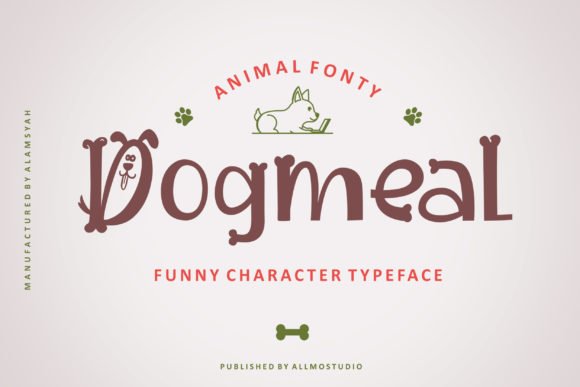
Adding a Dash of Joy to Your Designs
Have you ever found yourself brainstorming creative ideas, only to feel like something is missing? Maybe you’ve got a great concept, but it’s just not standing out in the way you envisioned. That’s where the right font can make all the difference.
Enter the adorable Dogmeal Font, a display font designed to bring a smile to your audience’s faces. With its quirky charm and playful feel, this font is the perfect addition to any design that needs a little extra joy. Whether you’re working on a social media campaign, a branding project, or simply a fun graphic, the Dogmeal Font is sure to elevate your design and leave a lasting impression.
Dogmeal Font Key Features
- Font Family: Dogmeal Font is a unique, hand-drawn sans-serif font.
- Unique Characteristics: Features a playful, handwritten feel with varying letterforms and subtle imperfections.
- Kerning and Ligatures: Includes advanced kerning and ligature pairs for improved text readability and aesthetics.
Review: Dogmeal Font
Overall, I think Dogmeal Font is an interesting addition to the world of typography. The unique blend of playful and elegant elements ✨ makes it a great choice for creative projects, such as children’s books, pet food labels, or even some quirky branding.
- Legibility: Dogmeal Font is highly legible in a variety of font sizes, making it suitable for use in headings and body text.
- Expressiveness: The font conveys a sense of friendliness and approachability, which is perfect for projects that require a human touch.
However, there are a few limitations to consider ⚠️:
- Font weight limitations: While Dogmeal Font has several styles, the weight variations are somewhat limited, which may not be ideal for projects that require a wide range of font weights.
- Lack of international language support: The font may not be optimized for languages that require specific character sets or diacritics, which could lead to display issues.
Overall, Dogmeal Font is a solid choice for creative projects that require a unique and expressive font. While it may have some limitations, its strengths make it a valuable addition to any designer’s toolkit.
Use Dogmeal Font for:
- Creating a playful and whimsical feel in children’s book illustrations.
- Designing a logo or brand identity for a pet-related business.
- Adding a touch of nostalgia to a retro-themed design.
For best results, pair Dogmeal Font with bold and colorful graphics to create a visually appealing design.
Unleashing Creativity with Dogmeal Font
Project 1: Whimsical Pet Stationery
Create a set of adorable pet-themed stationery using Dogmeal Font, featuring cute dog designs and playful phrases.
How to use Dogmeal Font: Use the font for the main text and headings, and combine it with hand-drawn illustrations of dogs and other pets.
Tips for combining with other design elements: Add a watercolor effect to the background to give it a playful and whimsical feel. Use pastel colors for a soft and feminine look.
Q: Are there any specific design recommendations for using Dogmeal Font effectively?
For optimal results, we recommend using Dogmeal Font with a clear, high-contrast background and a font size between 12pt and 24pt. Avoid using the font in extremely small sizes (less than 8pt) or with complex layouts that may compromise readability. Additionally, you can customize the font by adjusting the line spacing, letter spacing, and font color to suit your design needs.